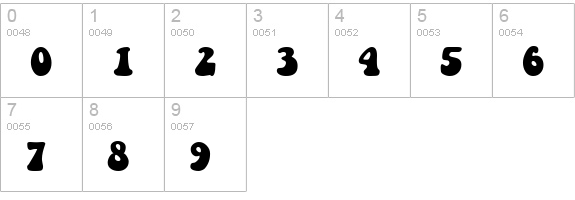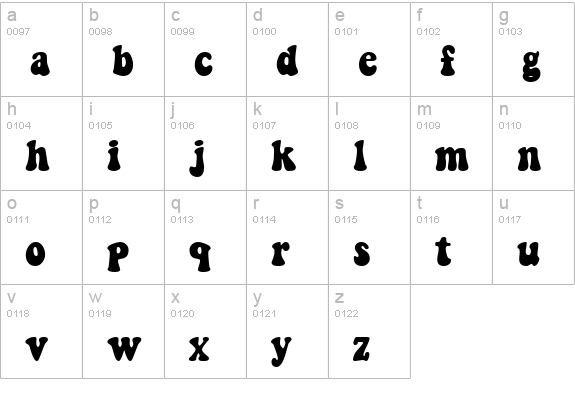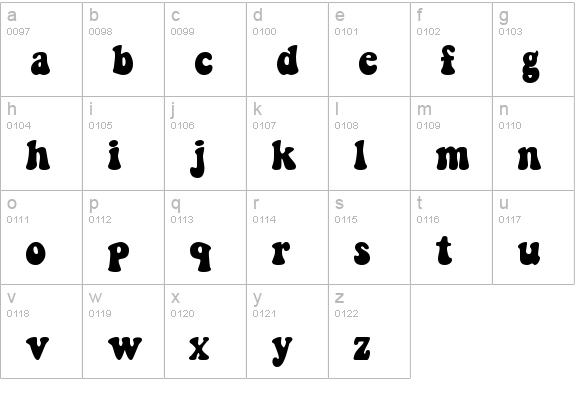
Keep on Truckin'FW Font Details
Keep on Truckin'FW is a bold and expressive font that captures the spirit of the open road. With its strong, chunky letterforms and retro-inspired design, this font is perfect for adding a touch of vintage nostalgia to your projects. Whether you're creating a logo for a trucking company, designing a poster for a rock concert, or crafting a retro-themed website, Keep on Truckin'FW will make your text stand out with its bold and rugged style. What makes Keep on Truckin'FW even more appealing is that it is free. That's right, this fantastic font is freely available to download at FontsMarket.com. You won't have to spend a dime to add this versatile and eye-catching typeface to your font collection. It's a great opportunity to enhance your designs without breaking the bank. Designed with attention to detail, Keep on Truckin'FW features thick strokes and rounded edges, giving it a friendly and approachable feel. The bold letterforms are easy to read, making it suitable for various applications, from headlines to body text. Its versatility allows it to be used across different mediums, including print and digital. The retro-inspired design of Keep on Truckin'FW adds a nostalgic touch to any project. Its timeless appeal brings back memories of classic American road trips, long-haul trucks cruising down the highway, and vintage signage. This font is perfect for capturing that retro aesthetic and creating a sense of adventure and excitement. Whether you're a professional graphic designer or a hobbyist looking to add some flair to your personal projects, Keep on Truckin'FW is a font you won't want to miss. With its bold style, versatility, and free availability, it's a font that will surely make an impact. So why wait? Head over to FontsMarket.com and download Keep on Truckin'FW today to start adding a touch of retro charm to your designs.